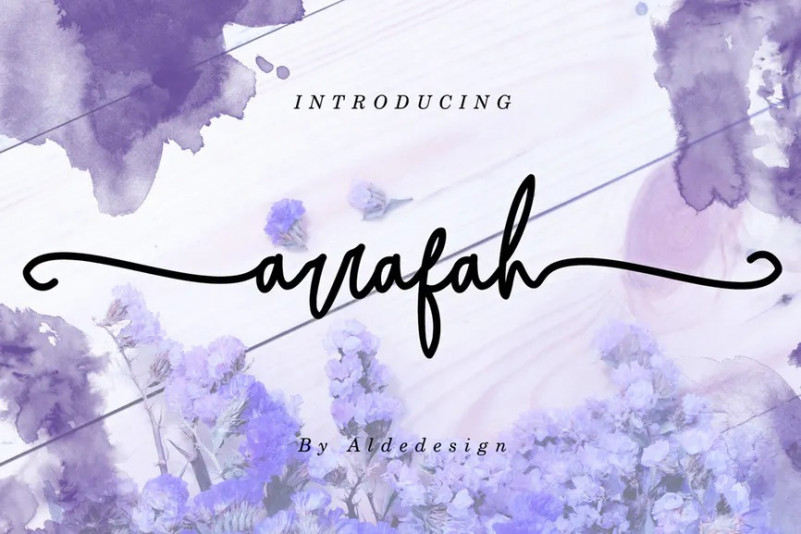
Arrafah Font
Arrafah Script is a font with awesome and classy taste, comes with natural touch, so much ligatures. We keep this font looks classy, readable, elegant, stylish, catchy and absolutly easy to use.
Arrafah Script is the great choice for watermark on branding, design, wedding, photography, signature, logo design, album cover, business card, quotes, and many other design project.